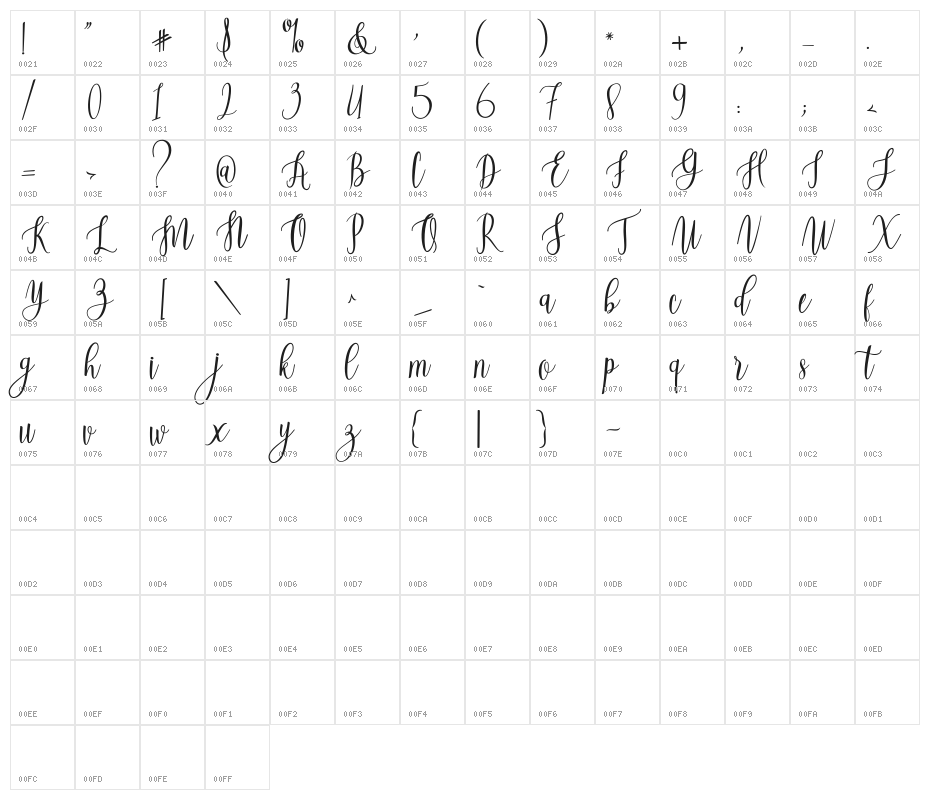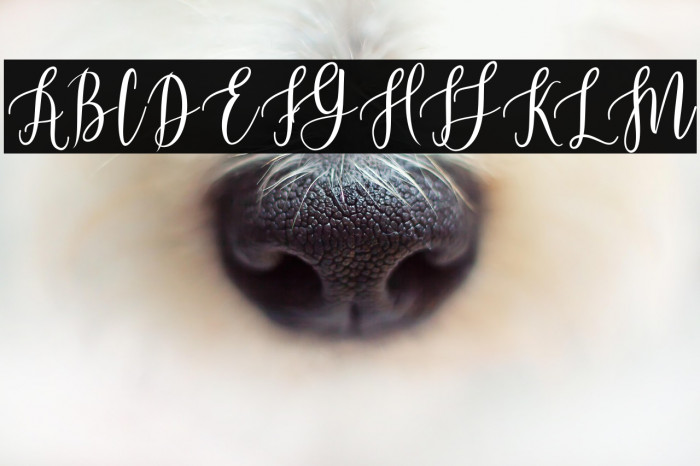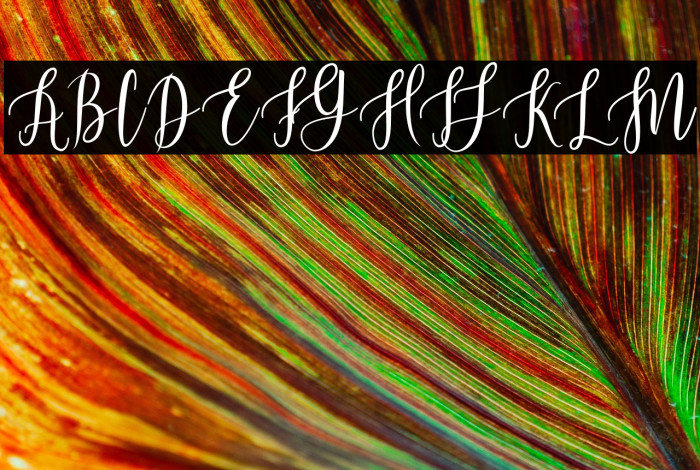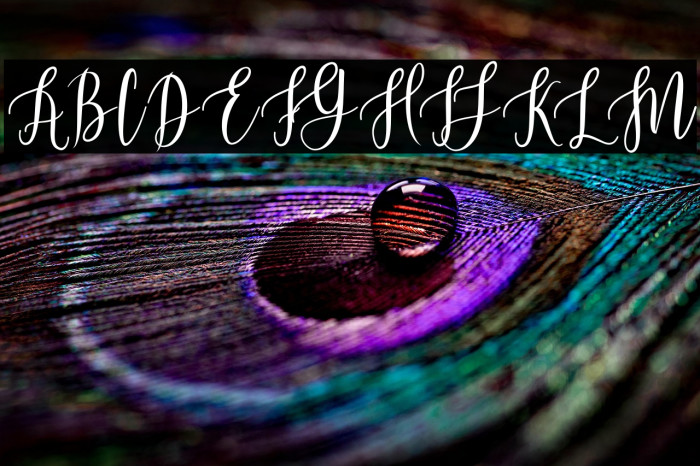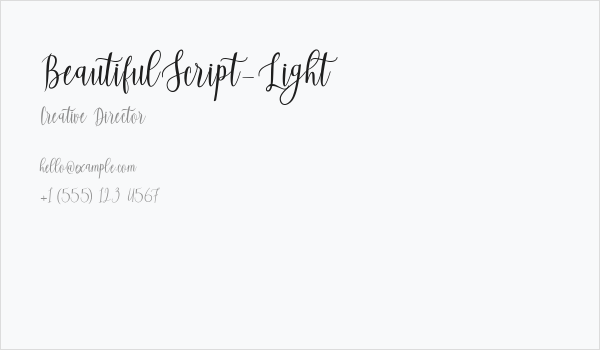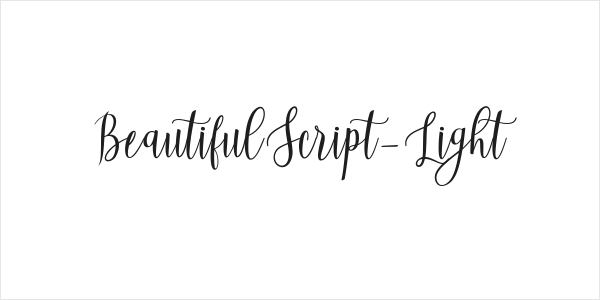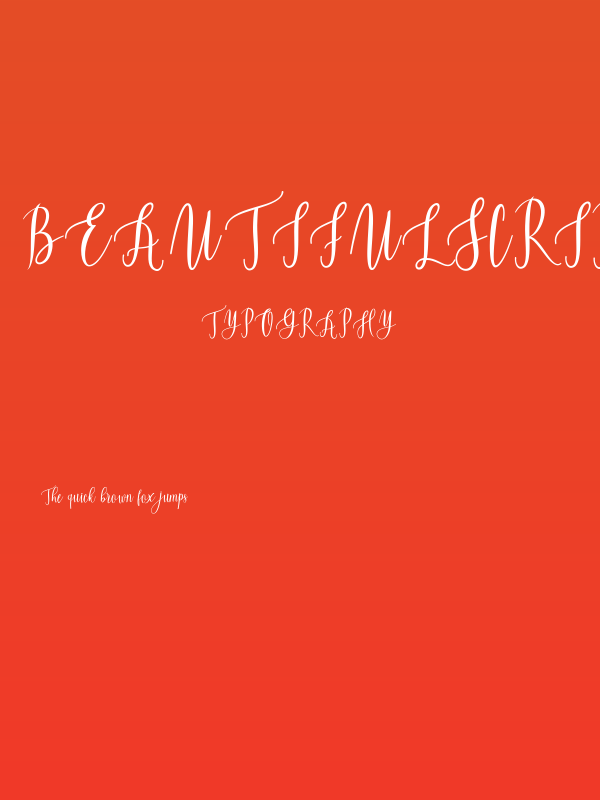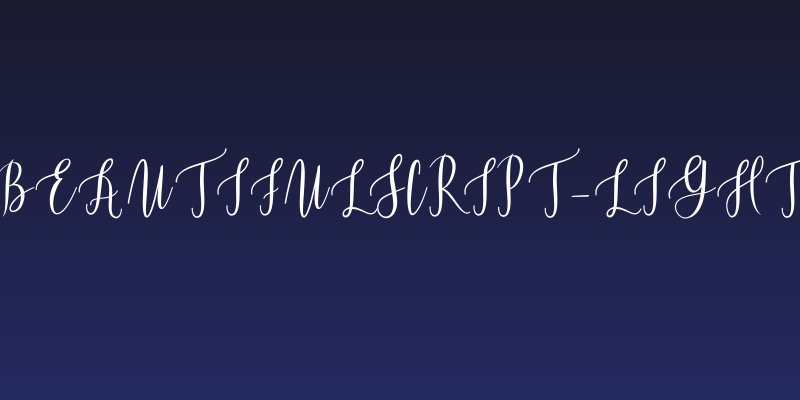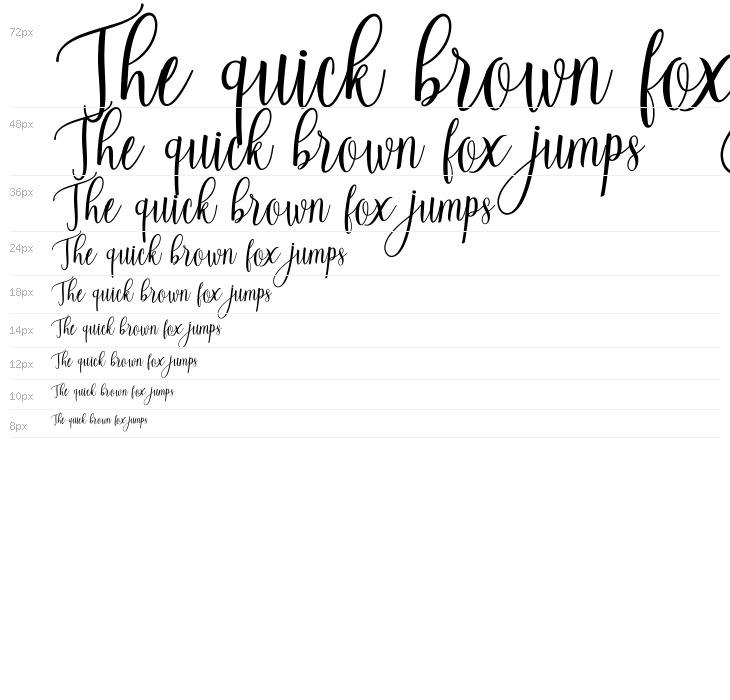
BeautifulScript-Light Font
BeautifulScript-Light Description
This elegant script font features flowing, interconnected letters that exude a sense of sophistication and grace. The uppercase letters are characterized by their tall, looping ascenders and descenders, creating a sense of movement and fluidity. The lowercase letters maintain a consistent style, with smooth curves and delicate lines that enhance readability while maintaining an artistic flair. Numbers and special characters are designed with the same attention to detail, ensuring a cohesive look across all text elements. The font's light weight adds to its airy and refined appearance, making it ideal for projects that require a touch of elegance.
| Overall Style | Elegant |
| Use Case | Logos, Invitations, Decorative text |
| Proposed Projects | Ideal for wedding invitations, elegant branding, greeting cards, and high-end product packaging. |